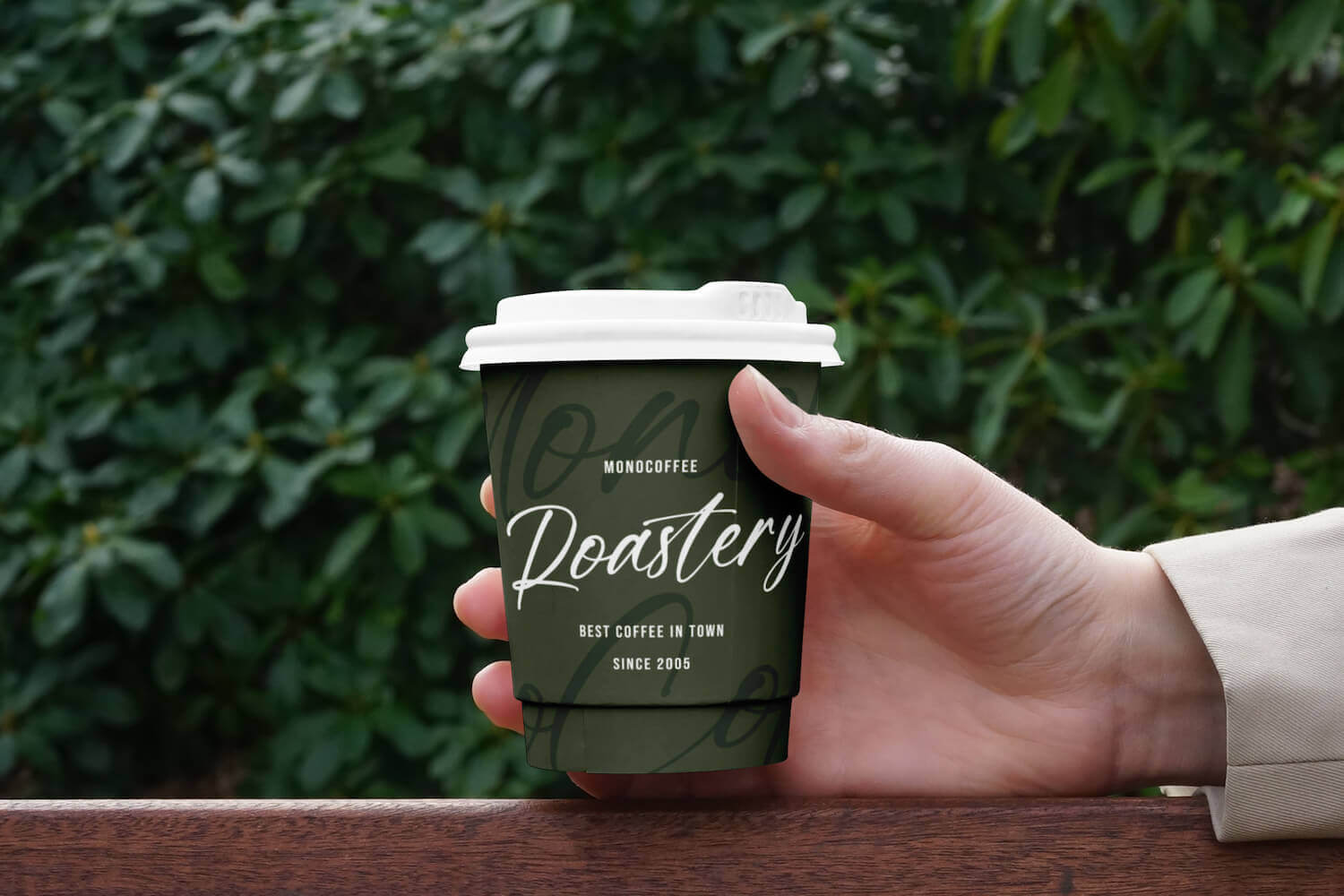
Mugen Font Modern Script is a stylish handwritten typeface that blends modern flair with classic charm. With its elegant flow and lightly textured strokes, this script font radiates a warm, approachable tone while maintaining a refined aesthetic. It’s an excellent choice for upscale branding, boutique logos, signature menus, or signage that needs a personal touch without sacrificing professionalism. The letterforms are expressive yet clean, featuring graceful curves and natural ligatures that feel handwritten but carefully crafted.
Thanks to its well-balanced character spacing and fluid readability, Mugen Font Modern Script adapts beautifully across formats—from digital campaigns to printed materials. Whether used on a fashion storefront, artisan packaging, restaurant advertising, or event invitations, Mugen injects personality and sophistication into every design. It supports a wide range of punctuation and multilingual characters, making it both versatile and globally friendly. If you want a script font that feels both stylish and sincere, Mugen Font Modern Script is a confident choice.